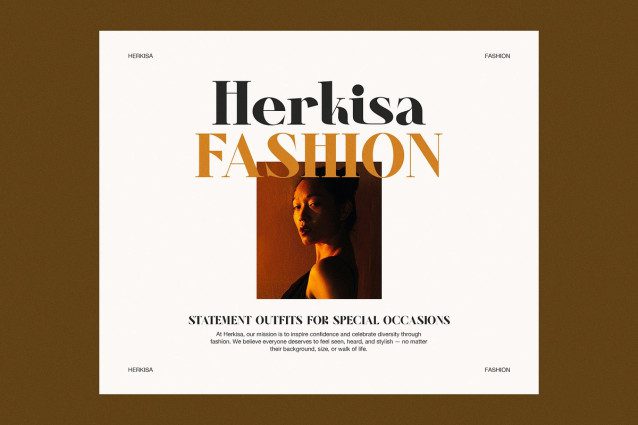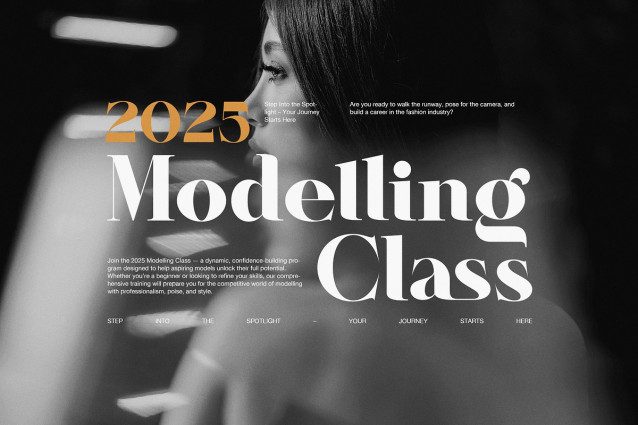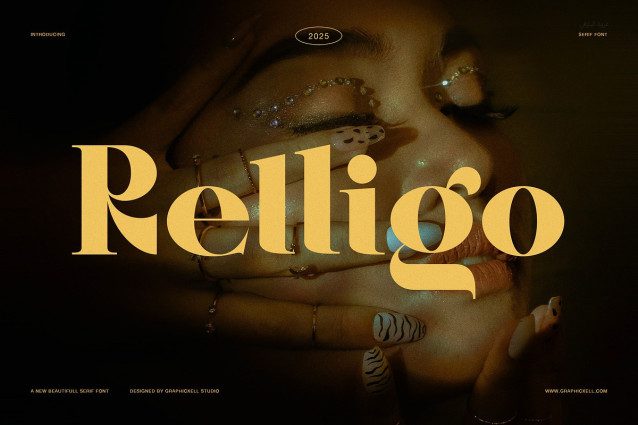
Relligo Font
Relligo Font is a clean and graceful serif typeface that blends modern style with timeless beauty. It was made for designers who want to create elegant and readable layouts. Because of its smooth curves and balanced lines, Relligo fits perfectly in branding, magazines, packaging, and wedding designs.
Every letter in Relligo has soft shapes and gentle contrast. The thin and thick strokes are balanced, making the text look clear and calm. In addition, the subtle serifs bring charm without being too bold. As a result, this font adds elegance to any design while keeping a natural, modern feel.
Relligo includes uppercase and lowercase letters, numbers, punctuation, alternates, and ligatures. It also supports multiple languages, so you can use it for many creative needs. Therefore, it works well for international projects or brands that value simple luxury.